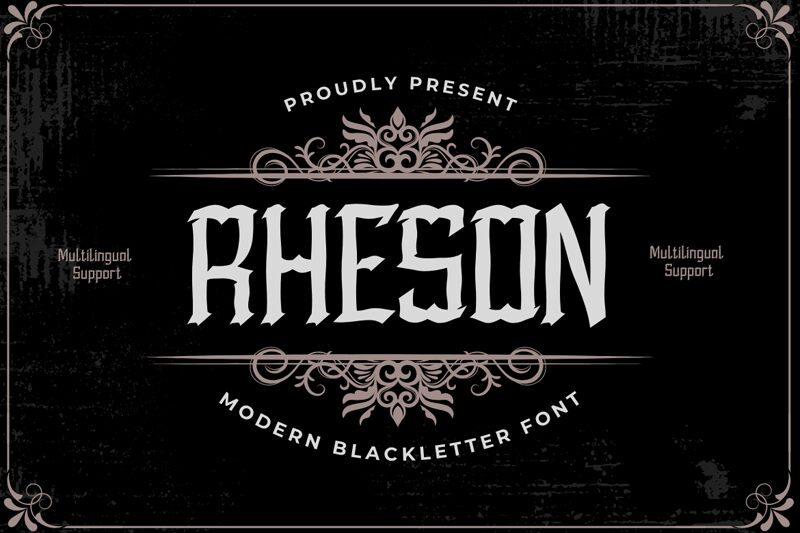
RHESON-Regular
RHESON, designed by twinletter, is a modern gothic font with a semi-light weight and condensed width. This font adds a touch of gothic flair to any project, making it ideal for diverse applications.
Whether you're designing a captivating logo, creating eye-catching labels or badges, producing the latest music or movie videos, designing vintage-inspired posters, or working on any other creative endeavor, RHESON ensures that your work will stand out. Its beautiful and harmonious shapes allow you to select the perfect words for your project.
With its high caliber design, RHESON guarantees that your creations will look their absolute best.